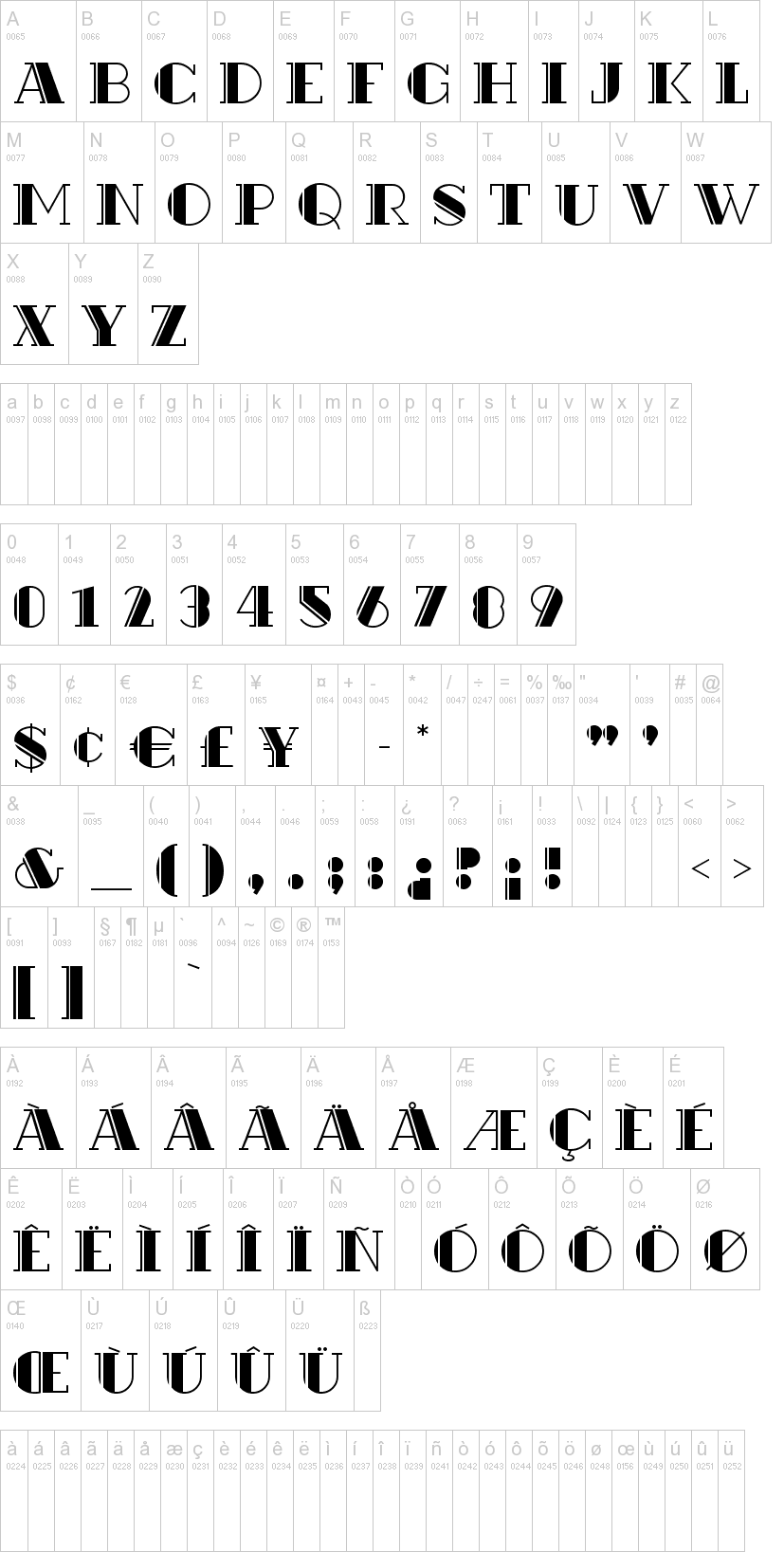
Rialto Font
The Rialto Font is perfect for sophisticated branding, editorial headlines, magazine layouts, luxury packaging, and stylish logo design. Its elegant serif structure and refined curves make it ideal for projects that need a timeless and professional look.
What makes the Rialto Font Free Download so exciting is its blend of classic elegance and modern versatility. Each letter is crafted to convey sophistication and clarity, giving your designs a polished, high-end feel that stands out in both print and digital applications.
The Rialto Font family includes multiple styles such as Regular, Italic, Bold, and Semi-Bold. These variations allow designers to create hierarchy, emphasis, and dynamic typographic layouts while maintaining a cohesive and elegant visual identity.